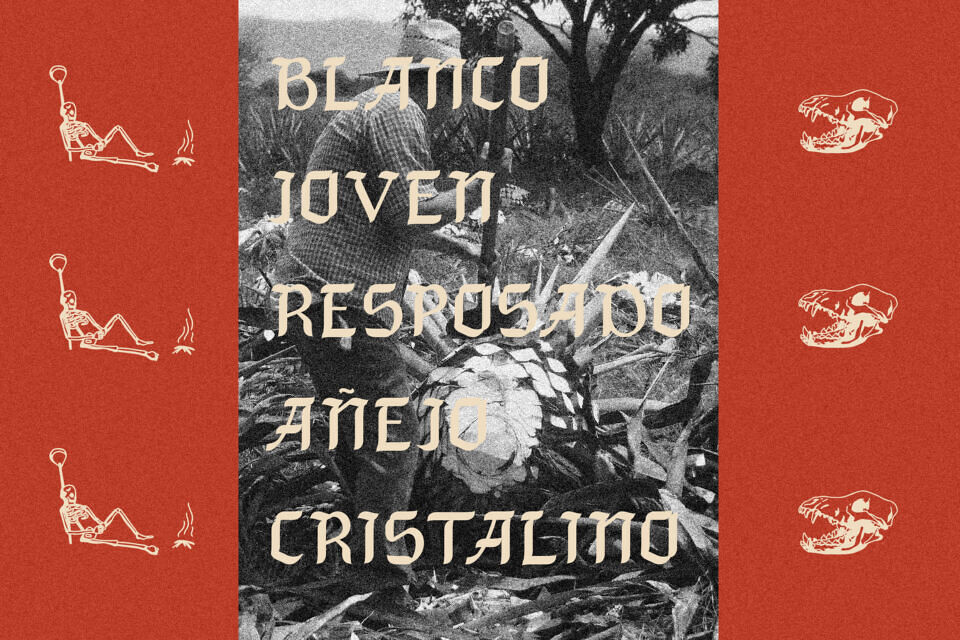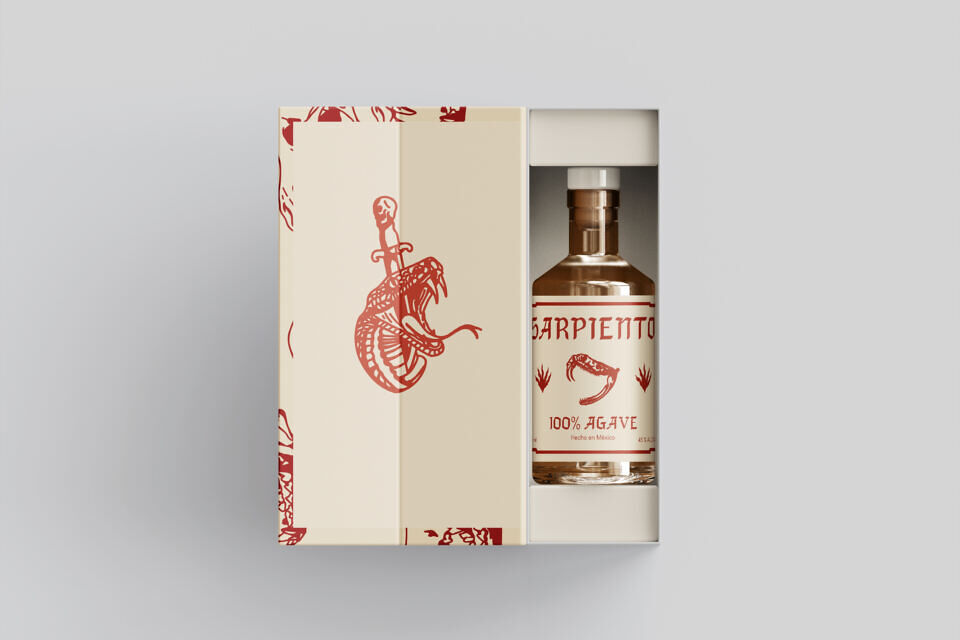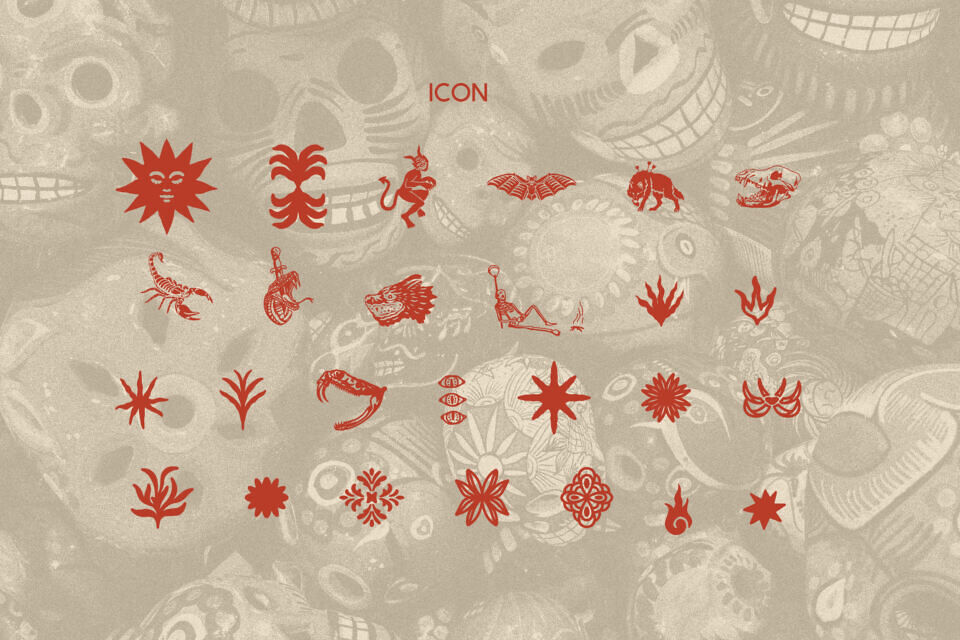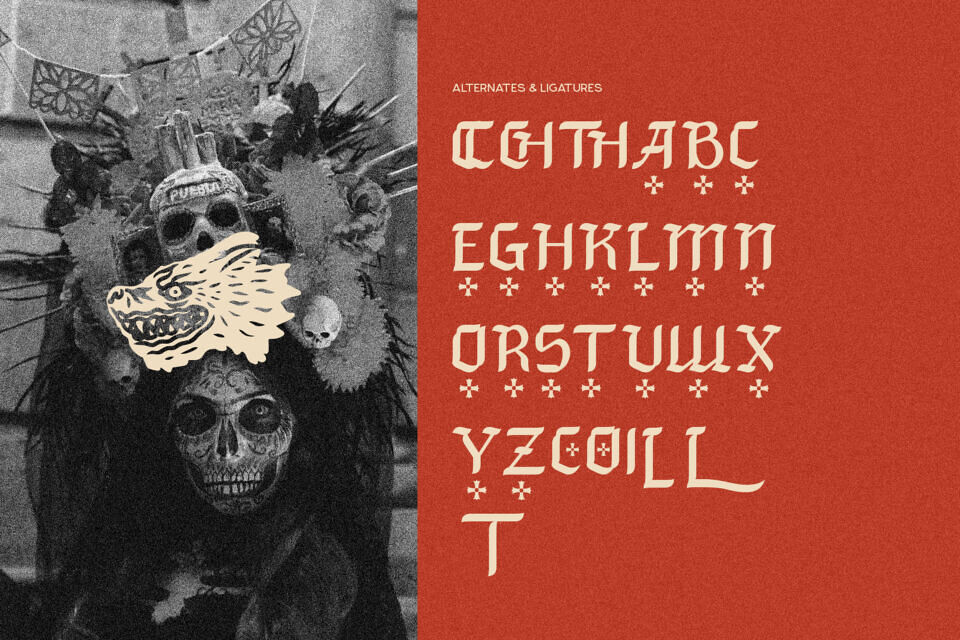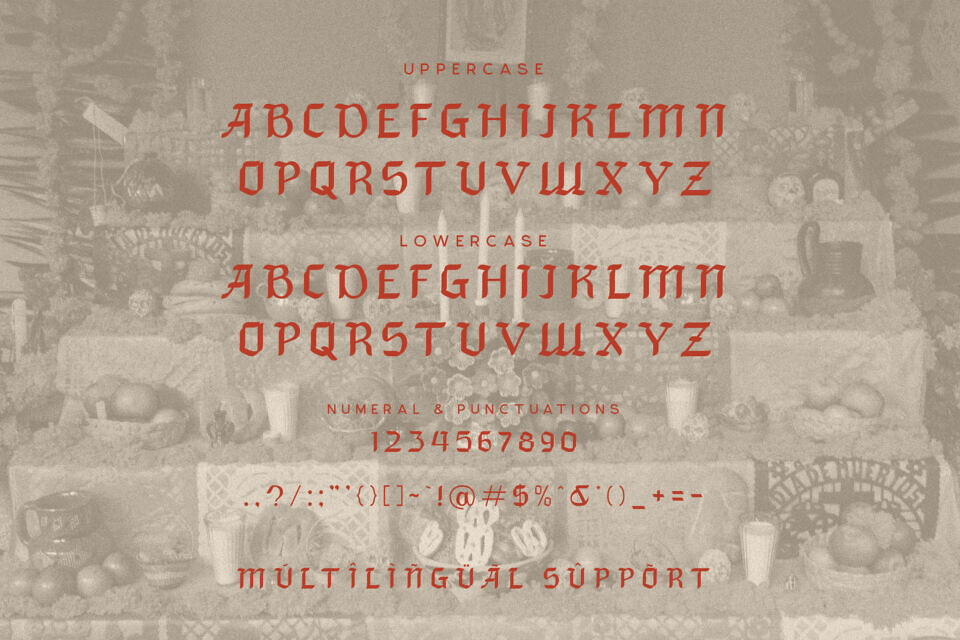
Blancoka is a bold and expressive display font that embodies the fiery soul of tequila and the spirited essence of Mexico. Designed with a deep appreciation for cultural heritage and visual storytelling, Blancoka merges traditional blackletter aesthetics with a contemporary Latin twist. The result is a typeface that feels both nostalgic and refreshingly original—perfectly suited for projects that demand presence, attitude, and unmistakable identity.
Inspired by the energy of lively Mexican cantinas, the charm of vintage tequila labels, and the detail of folkloric iconography, Blancoka brings character to every stroke. Its sharp, angular forms echo the jagged edges of agave and the flicker of flames in a mezcal shot. Perfect for headlines, packaging, liquor branding, or editorials, Blancoka grabs attention with bold style and cultural depth.
Every curve and edge feels handcrafted—reflecting artisanal roots with a rebellious twist. Blancoka embraces contrast and intensity, channeling desert heat, vintage print grit, and modern Latin boldness.